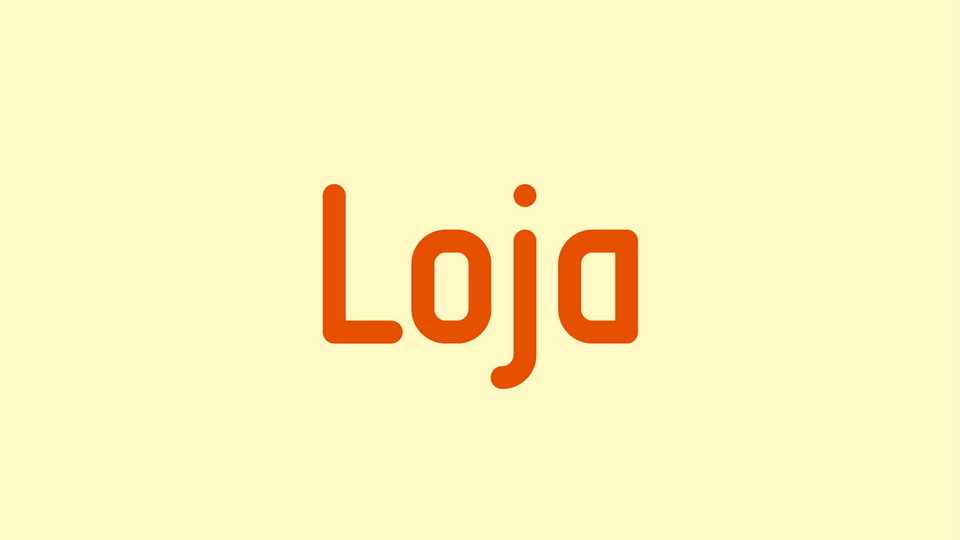
Download Loja typeface, a clean sans serif font family in three weights and matched Italics that combines organic softness with tech geometry. Loja typeface designed for headline, logotype, apparel, invitation, branding, packaging, advertising etc.